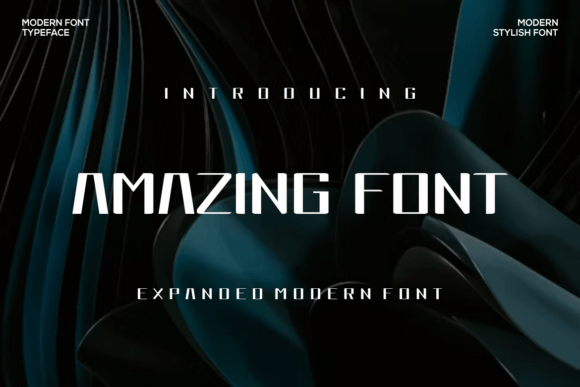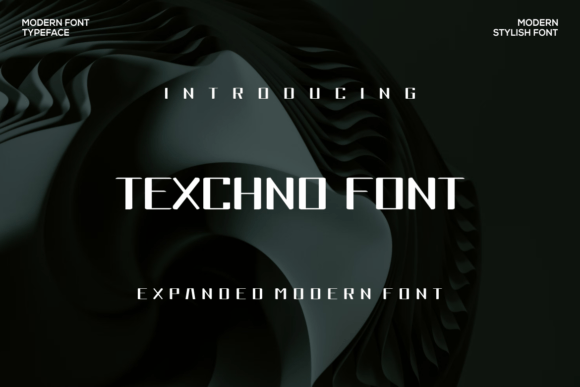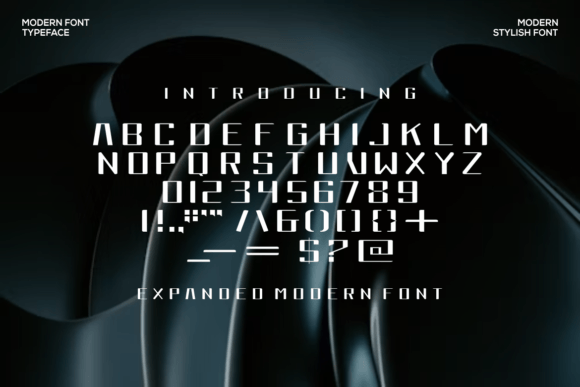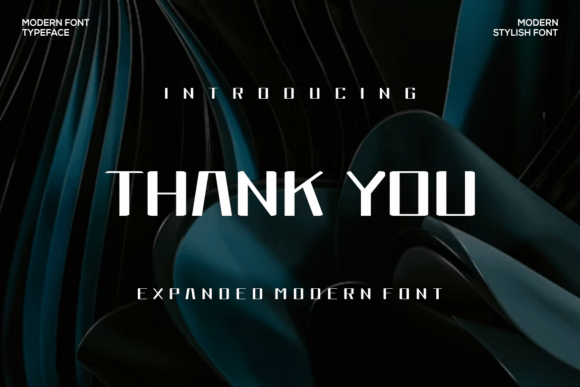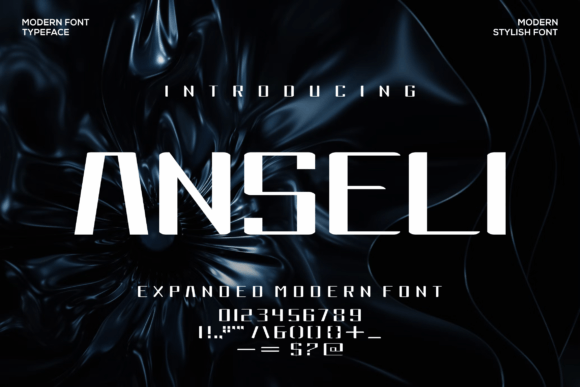
Introducing Antraks Font: The Modern Display Font You Need
Have you ever been in the middle of a design project, and suddenly, you’re stuck on finding the perfect font? I recall a recent experience where I was working on a branding project for a trendy coffee shop. The client wanted a bold, eye-catching font that would reflect their modern and vibrant personality. After hours of searching, I stumbled upon **Antraks Font**, a bold and authentic display font that exceeded my expectations. In this article, I’ll share my experience with Antraks Font, its features, and how to make the most of it in your designs.
A First Impression: What I Love About Antraks Font
Here’s what makes Antraks Font stand out:
- ✨ Unique and modern design: Antraks Font boasts a fresh and contemporary look that’s perfect for branding projects, logos, t-shirt printing, and creative products.
- ✅ Highly versatile: This font is extraordinary in a variety of contexts, making it an excellent addition to your font library.
- 💡 Excellent for headlines and titles: Antraks Font is designed to grab attention, making it ideal for headlines, titles, and promotional materials.
An Honest Review: Small Quirks and Limitations
While Antraks Font is an excellent choice, there are a few things to consider:
- 🤔 Limited use for body text: Due to its bold nature, Antraks Font might not be the best choice for lengthy body text. It’s best used for headlines, titles, and short paragraphs.
- ⚠️ Glyph compatibility: Some glyphs might not work seamlessly with certain software or platforms. Always test the font before finalizing your design.
The Story Behind Antraks Font
Antraks Font was designed with the goal of creating a modern and bold display font that would cater to the needs of designers, crafters, and creative hobbyists. The designer aimed to create a font that would be both unique and versatile, making it an excellent addition to any font library.
| What is Antraks Font best used for? | Antraks Font is perfect for branding projects, logos, t-shirt printing, creative products, and headlines. |
| Is Antraks Font suitable for body text? | No, Antraks Font is best used for headlines, titles, and short paragraphs. It’s not recommended for lengthy body text. |
| Does Antraks Font support OpenType features? | Yes, Antraks Font supports OpenType features, including Stylistic Alternates, Glyphs, and Swashes. |